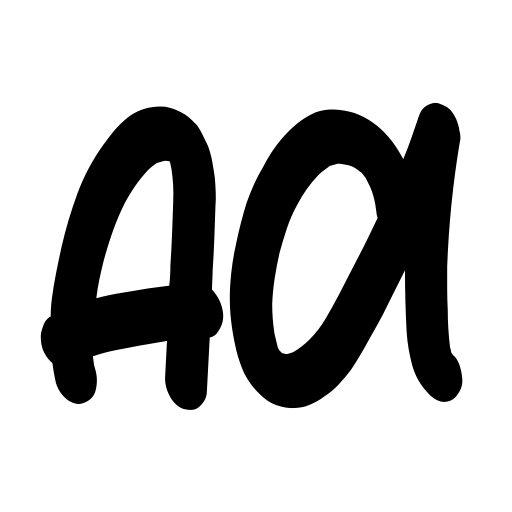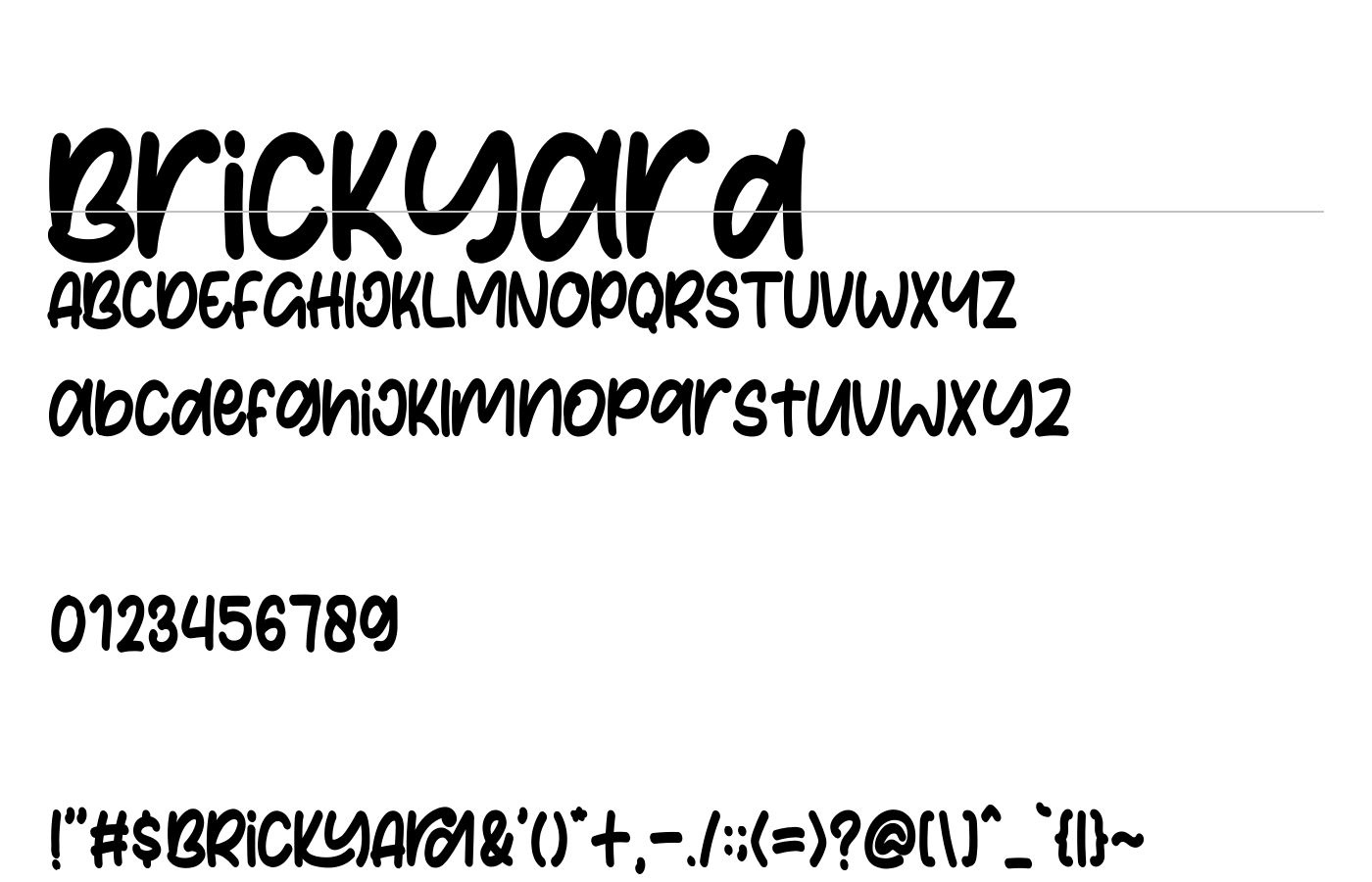
Brickyard is a playful, casual handwritten sans serif font with a bold, rounded weight and a slightly condensed width. Its friendly, irregular letterforms and informal style make it ideal for fun, creative projects, children’s materials, or branding that aims for a warm, approachable vibe. This font works well in logos, posters, and headlines where a lively and personal touch is desired.
Brickyard Font
About Brickyard Font